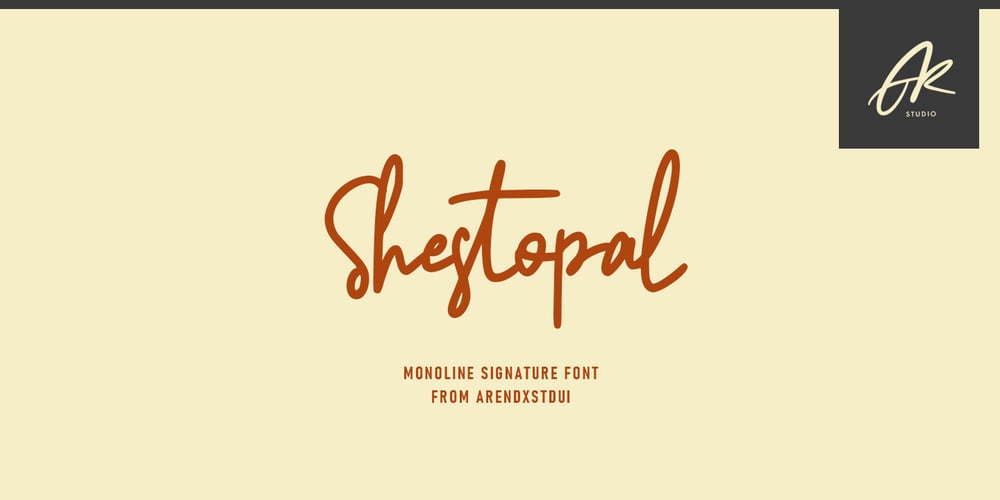
Shestopal
Shestopal font
Shestopal Font Family was designed by Asep Rendi and published by Arendxstudio. Shestopal contains 1 styles and family package options. Shestopal is a monoline signature script and is made as elegantly as possible. It is suitable for a variety of design projects, including logos, branding, wedding designs, social media posts, advertisements, product designs, magazines and more.